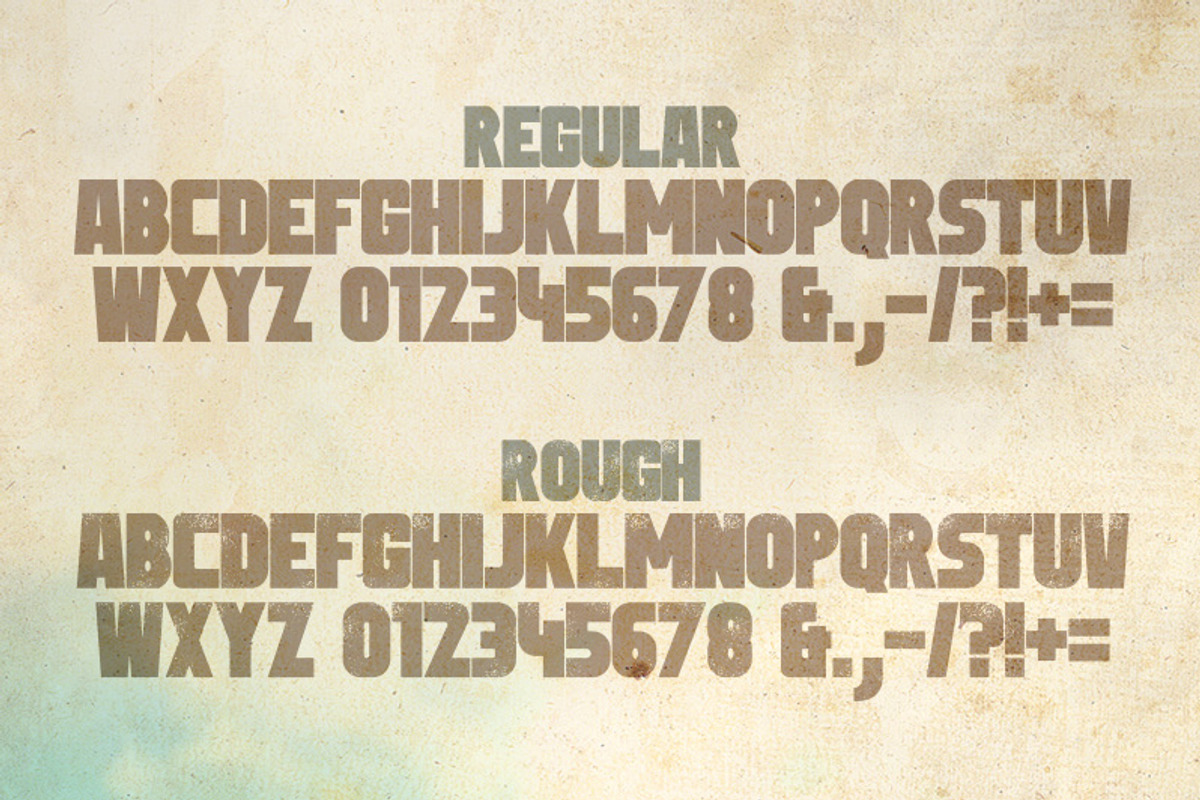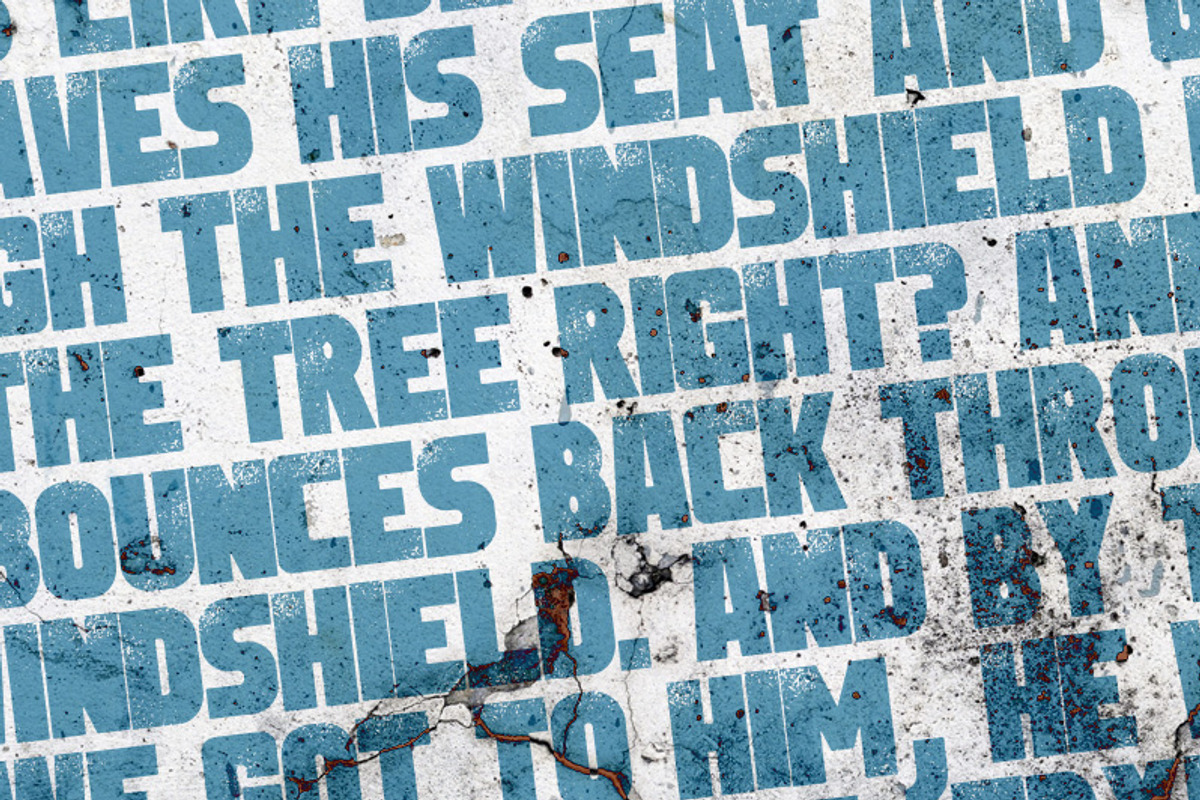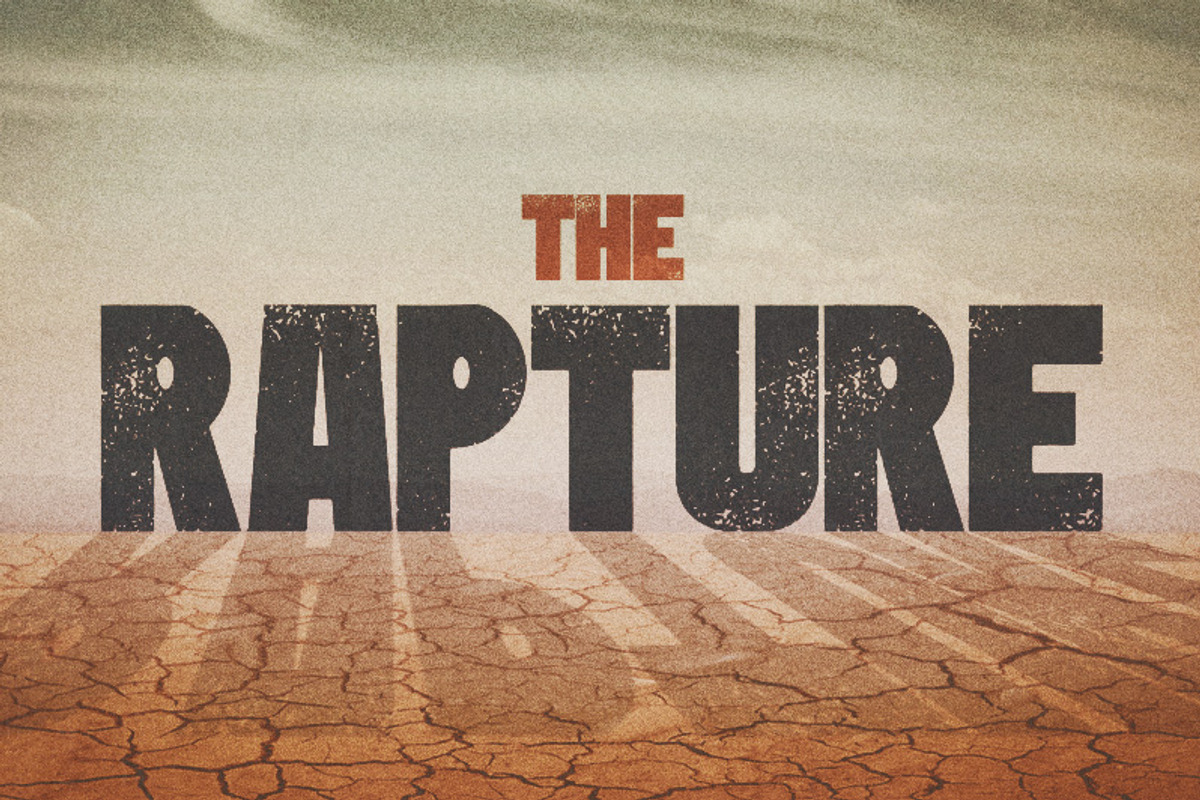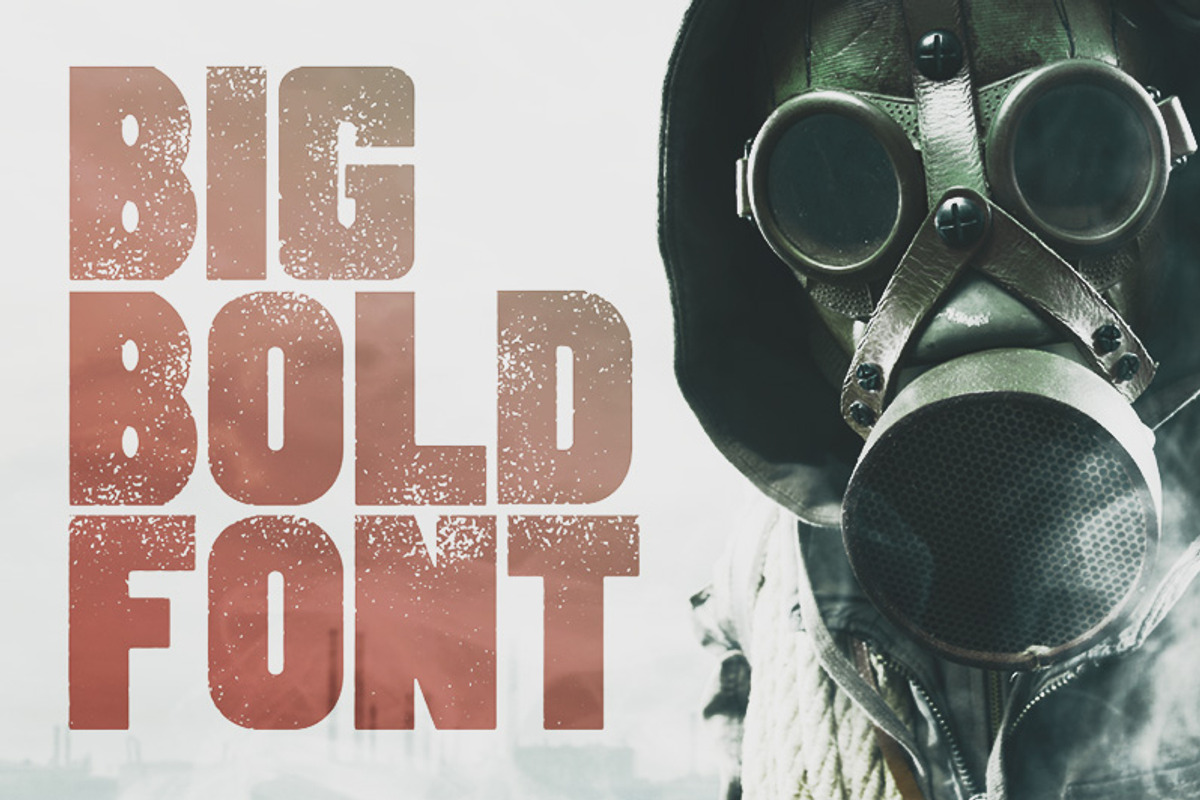
Sledge Typeface
Sledge Typeface by Tugcu Design Co. is a font selected for branding, posters, packaging, typography.
- It includes the Rough, textured version and the Regular version if you need to texture it yourself.
- The 3rd screenshot is the default kerning.
- There are no lowercase letters.
Why Sledge Typeface is worth a look
Sledge Typeface by Tugcu Design Co. fits naturally into Branding, posters, packaging, typography.